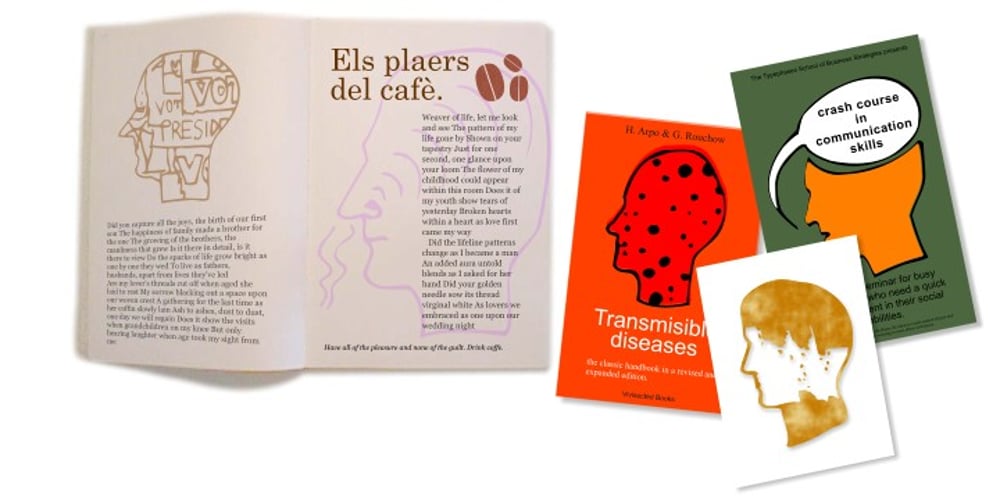
Capsbats
Capsbats font
Capsbats Font Family was designed by Joan M. Mas and published by Typephases. Capsbats contains 3 styles and family package options. Everything your head should not be or would rather not do is here. A complete collection of 225 illustrations (plus bonus shadows) in three fonts. The illustrations collected in the Capsbats keep the free-flowing lines of the ink-on-paper sketches. As a dingbat, or pictorial typeface, the Capsbats are very versatile: you can use them immediately in any application. The vectorial format of the font file means they are scalable with no loss of quality. And you can customize them in no time in your favourite graphics program. They can be used out of the box, as accents or spot illustration, or enlarged, combined, coloured, textured… to achieve an infinite variety of results easily. With Capsbats you have an incredible resource for your concept illustration needs: enlarge them and you can create a high impact page layout, posters, magazine covers and book jackets, advertising… The Capsbats Shadows are bonus silhouettes that you can use in very different situations. Use these shadows to fill them with your own patterns, or use them as a mask or clipping path, to paste the images you want inside them. The possibilities are endless. We didn’t limit our imagination in drawing them, so why would you when using them? The book 1000 Heads is a compendium of the drawings featured in the Capsbats and Entestats and it gives a glimpse of the limitless applications of this collection.